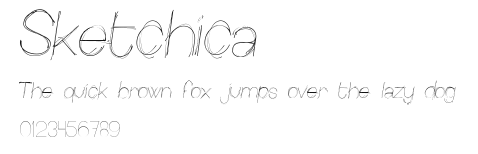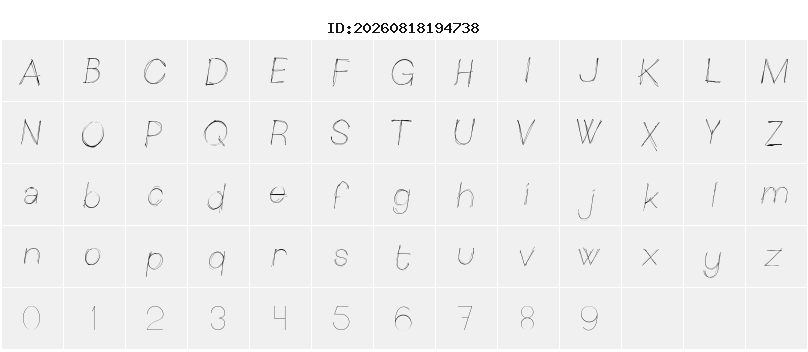
Sketchica Preview
• Font Name: Sketchica
• Full Font Name: Sketchica
• Designer: Måns Grebäck
About Sketchica.ttf
Sketchica.ttf is a modern, elegant sans-serif font designed for ultimate readability and visual harmony. Perfect for branding, headlines, web design, and print materials.